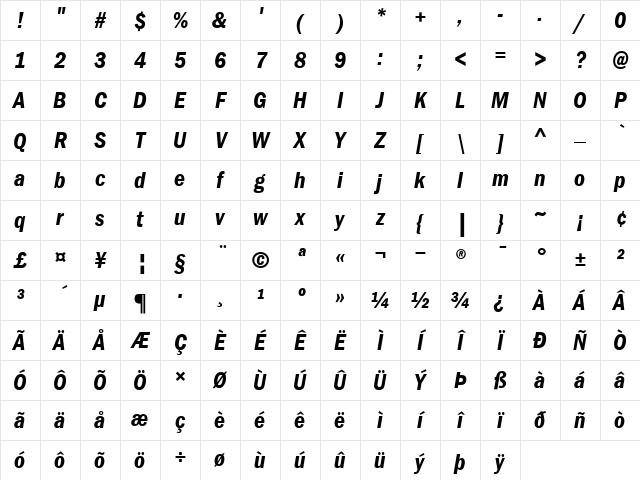
ITCFranklinGothic-DemiCondensed RomanItalic
Style: RomanItalic
Design Context for ITCFranklinGothic-DemiCondensed
ITCFranklinGothic-DemiCondensed takes a clean, functional approach - its unadorned letterforms prioritise legibility and work reliably across screen and print environments. The slanted form adds forward momentum and visual energy. Its narrow stance lets it pack a punch even in space-constrained designs.
Font Pairing: Works well alongside a characterful serif or display font that can carry the expressive load while ITCFranklinGothic-DemiCondensed handles the functional copy.
Pro Tip: Use ITCFranklinGothic-DemiCondensed tightly set in headlines and banners - its condensed proportions make it ideal for maximum impact in minimum horizontal space.